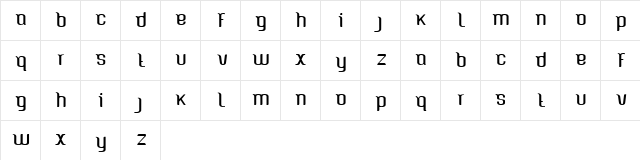
Caspian Sea Med Tracked Regular
| Designer | Mahir Huseynov |
Design Context for Caspian Sea Med Tracked Typeface
Caspian Sea Med Tracked offers clean, dependable letterforms without strong stylistic allegiance, making it a practical choice for designers who need flexibility.